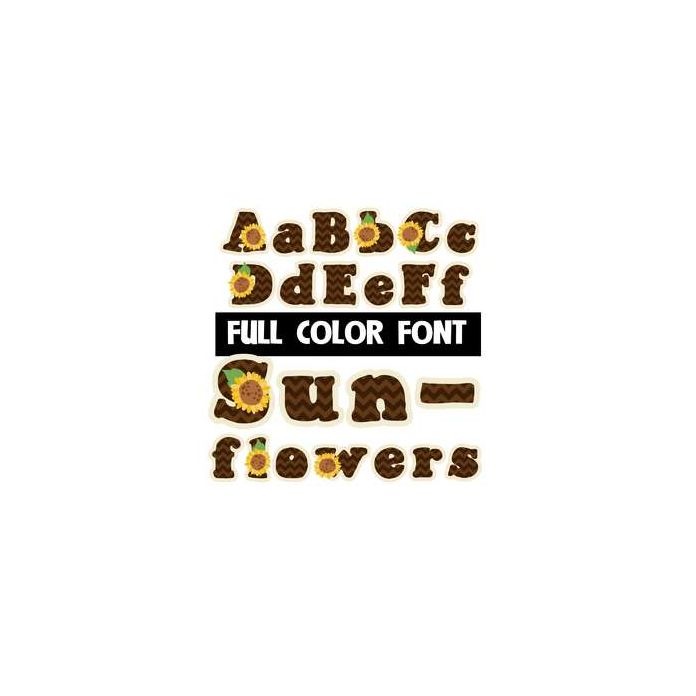
This full-color font features sunflowers periodically and a sunflower for the bullet point. This font works best for titles, displays, posters and more. Please note color fonts will show as black in non compatible programs. This font type is compatible with Silhouette Studio.